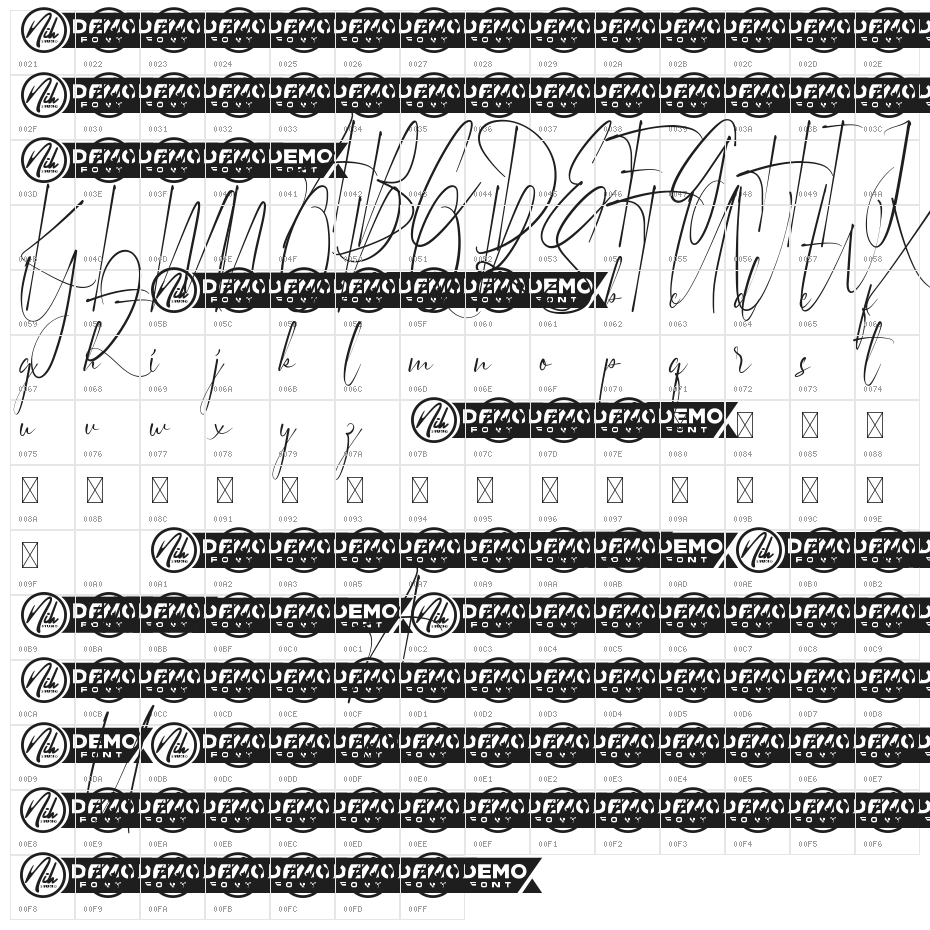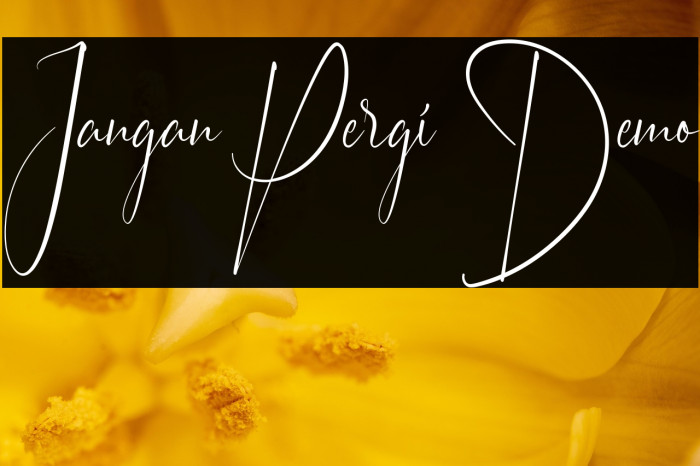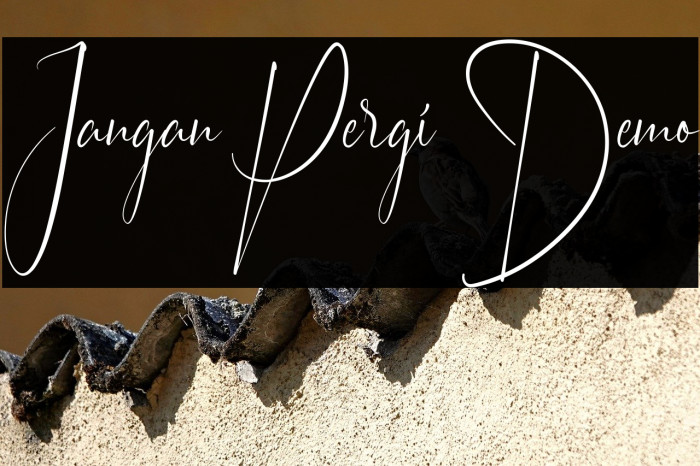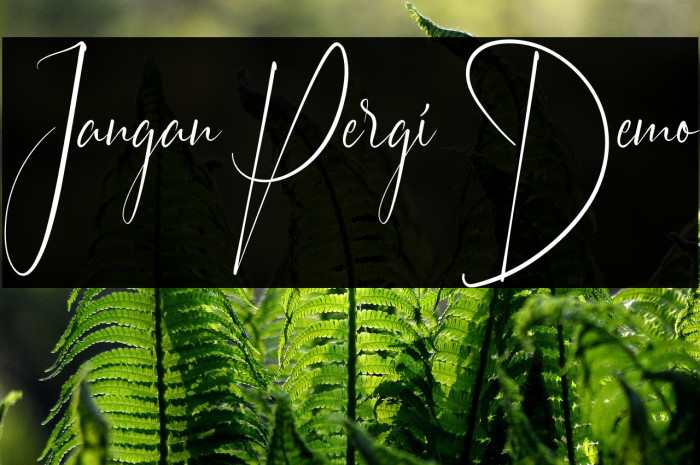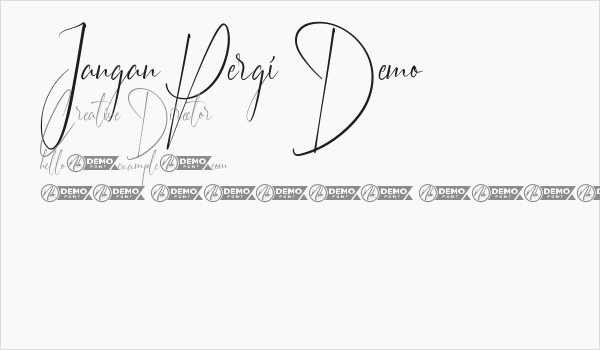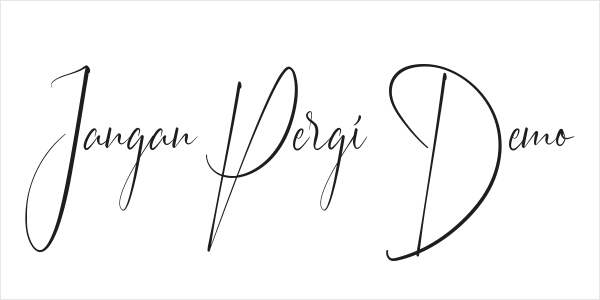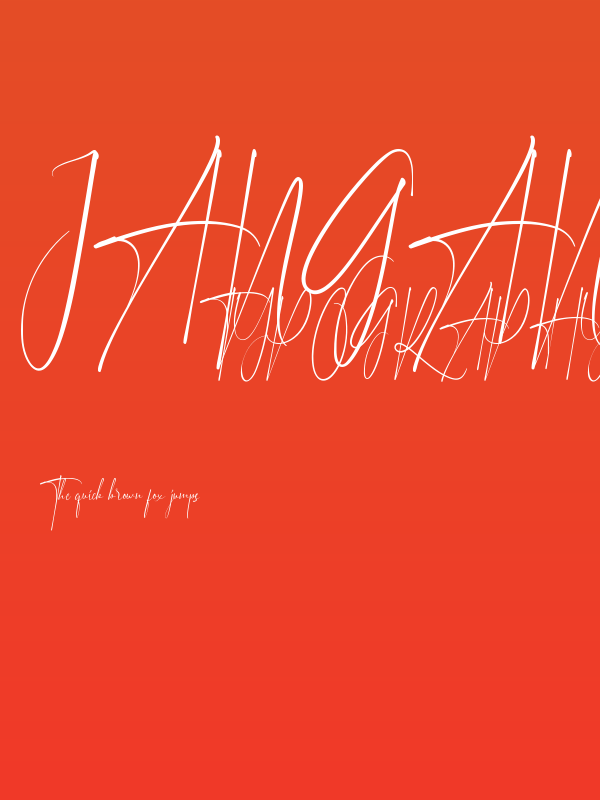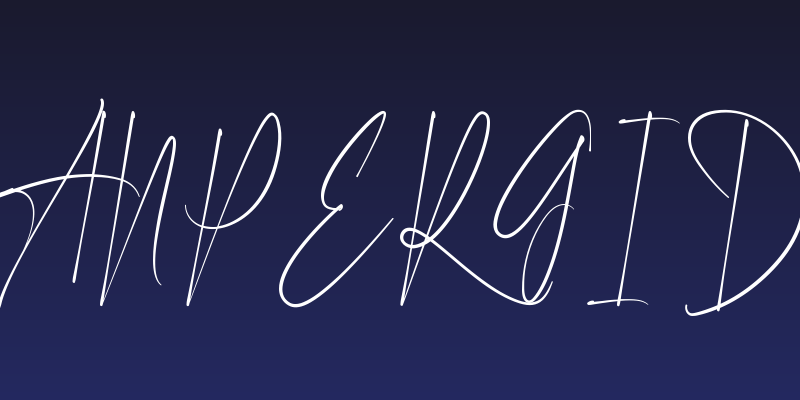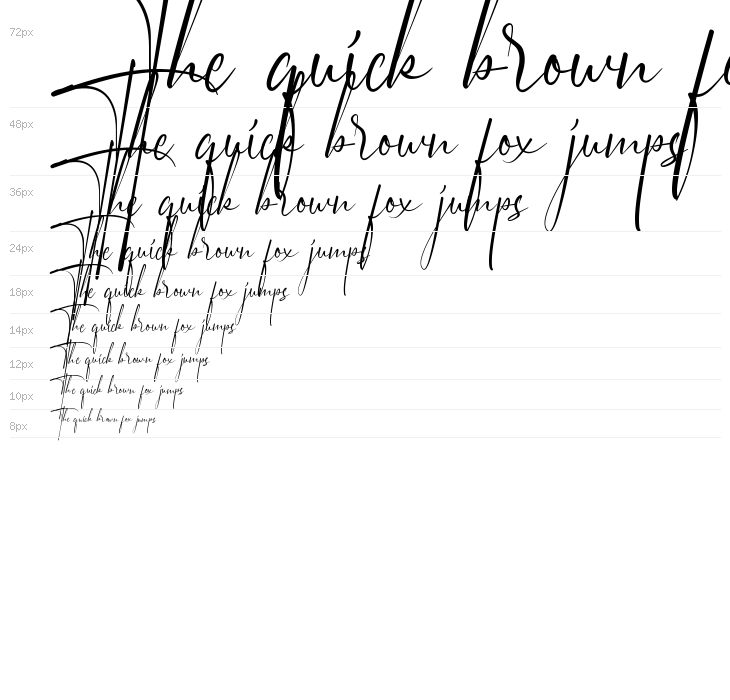
Jangan Pergi Demo Font
Jangan Pergi Demo Description
This font features a dynamic and flowing script style, characterized by its elegant and elongated letterforms. The uppercase letters exhibit a graceful, airy quality with sweeping curves and delicate lines, while the lowercase letters maintain a consistent fluidity and rhythm. The overall appearance is both sophisticated and approachable, making it suitable for a variety of design contexts. The font's thin strokes and high contrast between thick and thin lines add a touch of refinement, enhancing its visual appeal. The spacing between characters is balanced, allowing for readability while maintaining the script's inherent charm.
| Use Case | Logos, Invitations, Personal Stationery |
| Proposed Projects | Ideal for wedding invitations, elegant branding, personal stationery, and romantic-themed designs. |